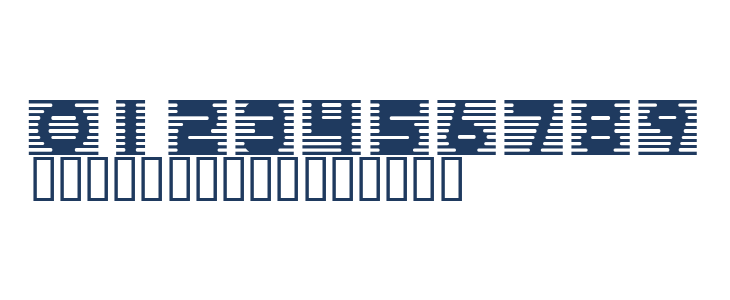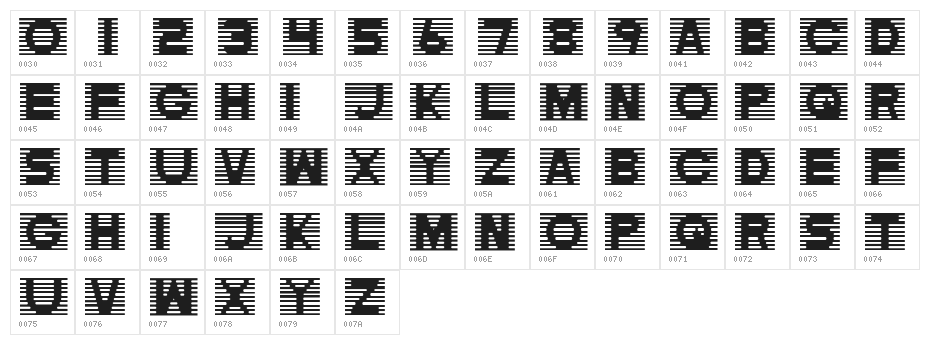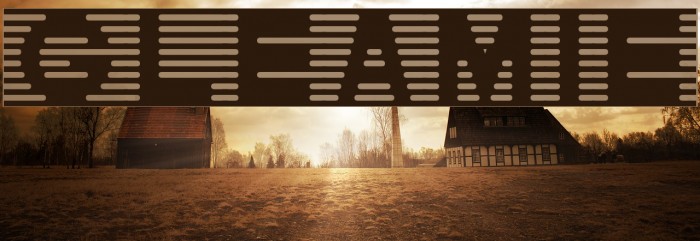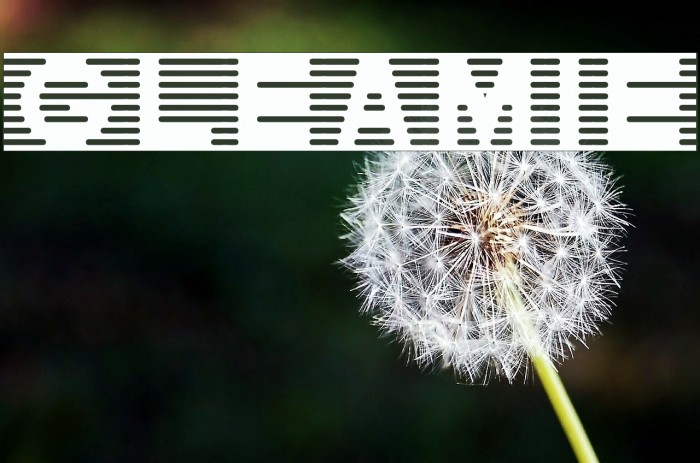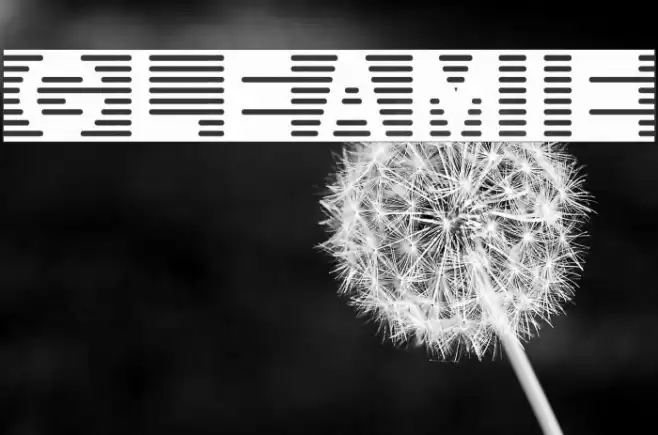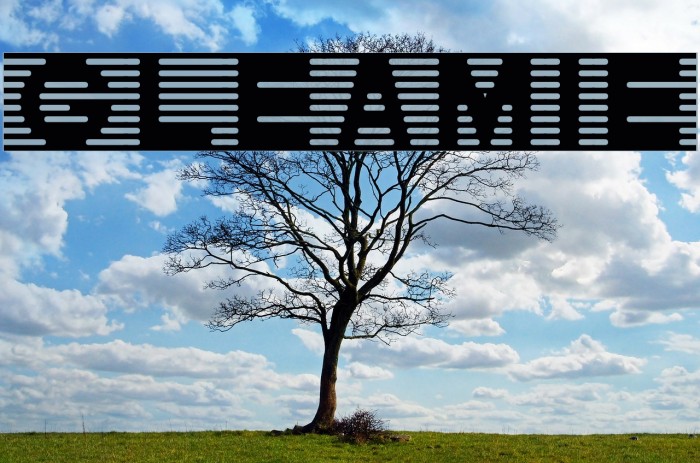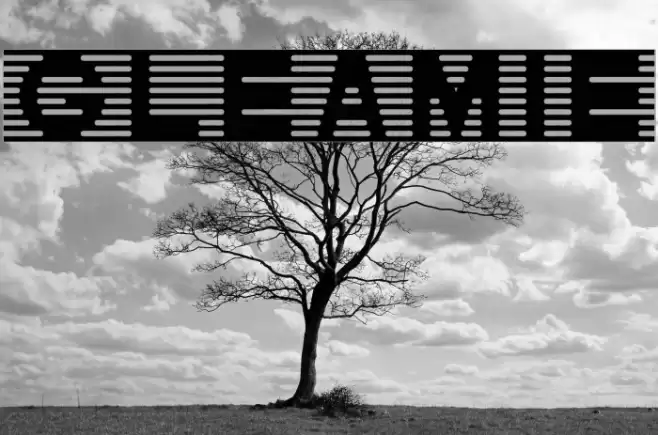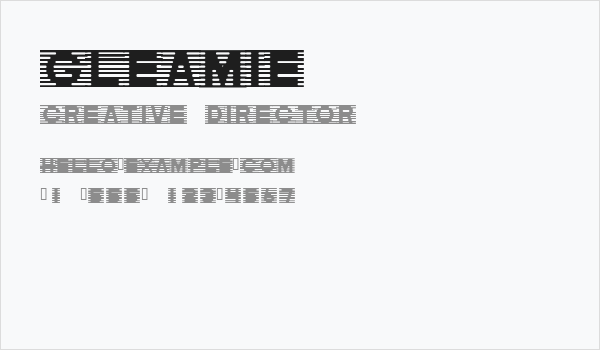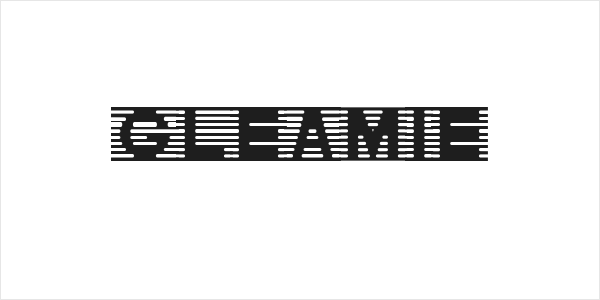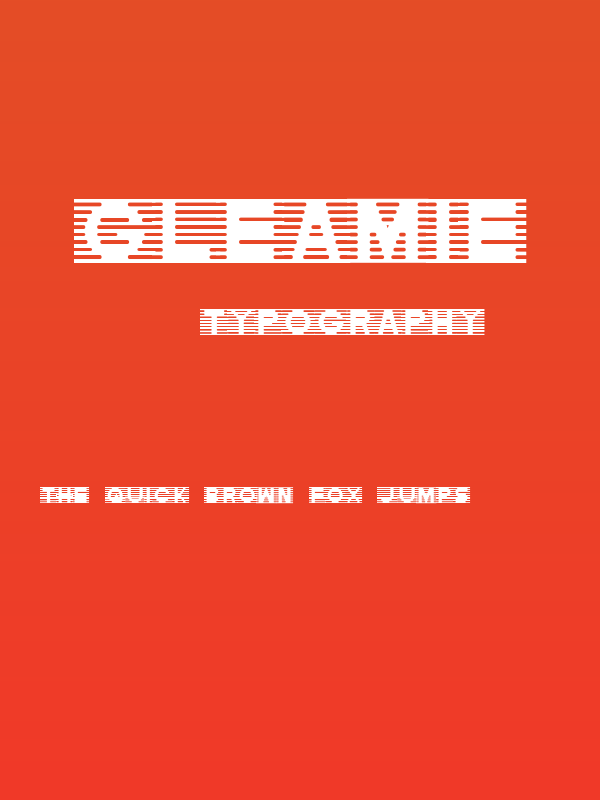
Gleamie Font
Gleamie Description
This font features a unique striped pattern within each character, giving it a modern and digital aesthetic. The uppercase and lowercase letters maintain a consistent width, with horizontal lines creating a sense of movement and energy. The numerals and special characters follow the same design, ensuring uniformity across all elements. The font's bold appearance is accentuated by the alternating black and white stripes, making it highly visible and attention-grabbing. This design is particularly well-suited for projects that require a futuristic or tech-inspired look.
| Proposed Projects | Ideal for tech-related branding, digital art, futuristic posters, and modern advertisements. |